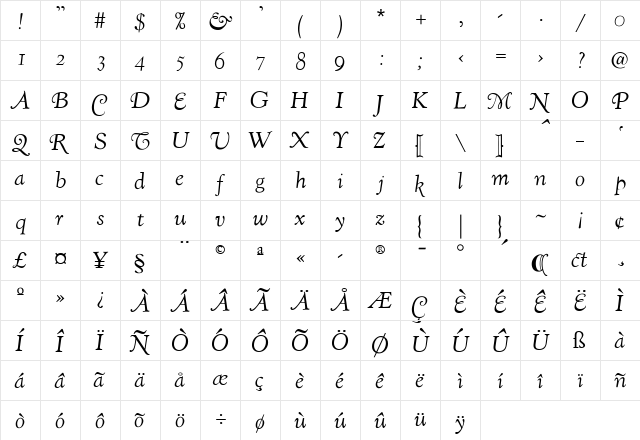
KennerlyHW-Italic Italic Font Preview
KennerlyHW-Italic Italic
KennerlyHW-Italic Italic Font Details
| Foundry | Lanston Type Co Ltd |
Design Context for KennerlyHW-Italic Typeface
KennerlyHW-Italic takes a measured approach to typography — its balanced proportions and neutral character make it a reliable workhorse for both digital and print work. The slanted form adds forward momentum and visual energy.